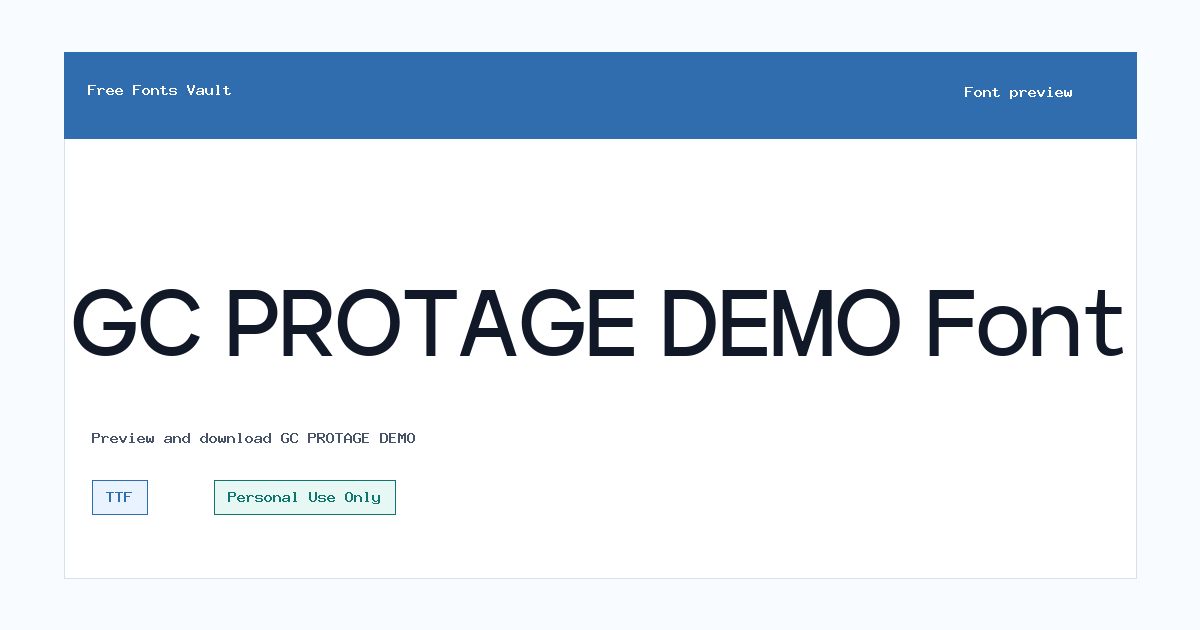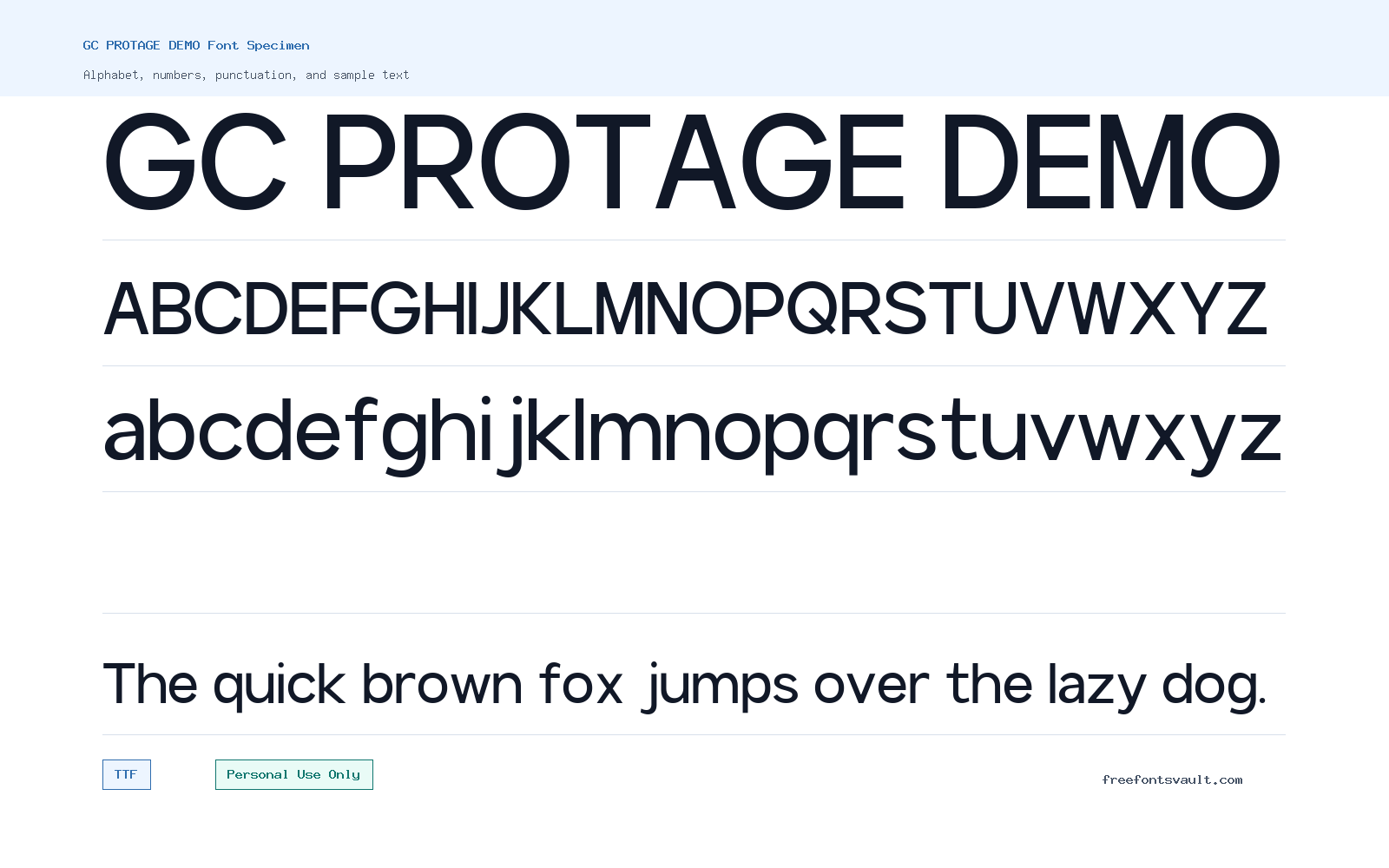
GC PROTAGE DEMO
- Designer Dwi Indah Fadhilatul Amanah of Glyphonic
GC PROTAGE DEMO is a sans serif demo font from the GC Protage family. It works best when you need clean, balanced display text that feels modern without becoming too decorative. Use the preview tool to test your own words before downloading, especially if you plan to use it for headings, cards, logo mockups, or short editorial sections.
About GC PROTAGE DEMO Font
GC PROTAGE DEMO is the regular/default member of the GC Protage demo family, with a straightforward sans serif structure suited to short and medium-length display settings. Its letterforms are practical for titles, nameplates, social graphics, branding drafts, and simple visual layouts where the type needs to be clear at a glance. Because the family is presented as a demo font, it is a good choice for testing a visual direction before deciding whether it fits a larger design system or finished project. The font files include TTF format styles, with regular and bold weights listed, so visitors can try both a lighter everyday heading style and a stronger emphasis style.
For best results, preview GC PROTAGE DEMO with the exact text you want to use. Short phrases will show the font’s proportions more clearly than long paragraphs, and all-caps words can help you judge spacing in badges, covers, and navigation-style labels. The regular weight can be useful for balanced headings, section titles, quote cards, and brand mockups that need a clean voice. The bold weight can add contrast for posters, thumbnails, packaging drafts, and hero text. If you are using it in a layout with body copy, pair it with a simple readable text font and keep GC PROTAGE DEMO for the parts that need visual attention. Before using it in a public or client project, check the license terms carefully.
- Useful for clean display typography, balanced headings, cards, branding mockups, and editorial accents
- Headings, title cards, quote graphics, and short display text
- Branding mockups, poster drafts, packaging previews, and social media layouts
GC PROTAGE DEMO is credited to Dwi Indah Fadhilatul Amanah of Glyphonic.
Use GC PROTAGE DEMO for short text where its sans serif shape can stay clear and intentional. Test names, headlines, and sample branding lines in the preview box, then compare regular and bold weights for contrast. Avoid relying on it for long paragraphs unless you have checked readability at the final size.
What kind of font is GC PROTAGE DEMO?
GC PROTAGE DEMO is a sans serif demo font. It is suited to headings, branding mockups, cards, editorial sections, and other short display uses.
How should I pair GC PROTAGE DEMO with other fonts?
Keep GC PROTAGE DEMO for headings or display text and pair it with a plain, readable body font. This keeps longer text easy to read while letting the display font carry the visual style.